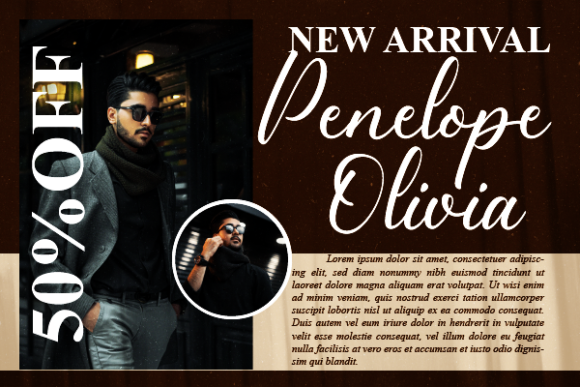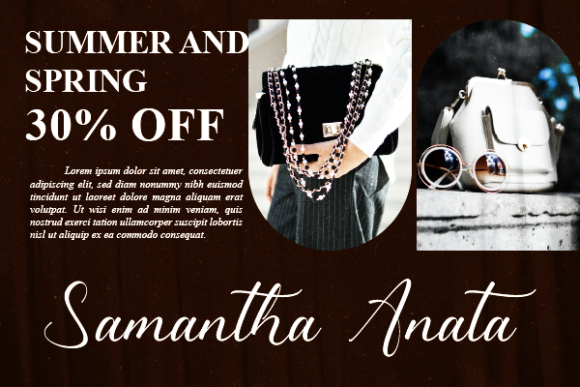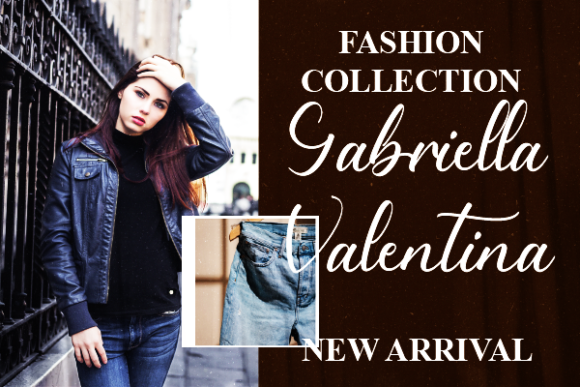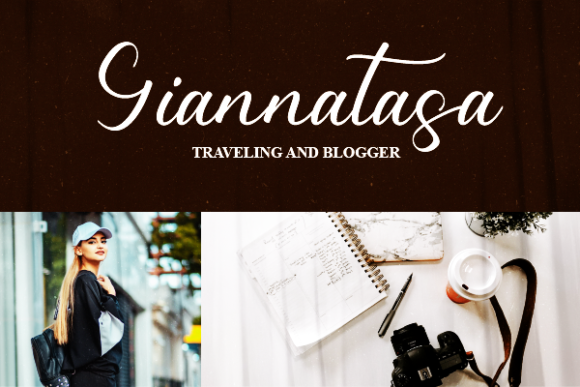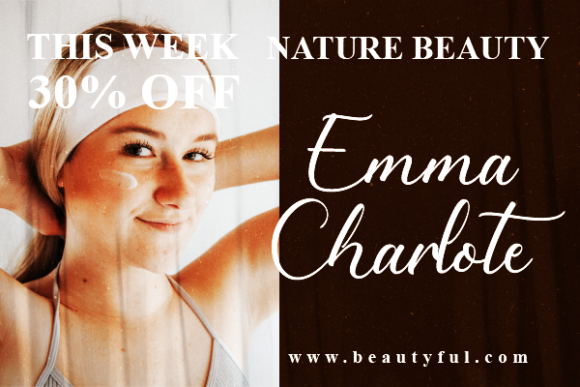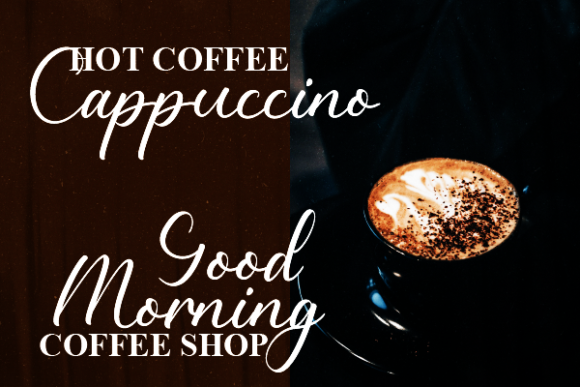
When Design Meets Elegance: Ainsley Regina Font
Have you ever been stuck on a design project, scrolling through fonts, trying to find that perfect match? You know, that moment when everything comes together, and your creative vision starts to take shape? That’s exactly what happened when the Ainsley Regina Font was born – a free-flowing script font designed to elevate your packaging, invitations, and event posters to the next level.
Ainsley Regina Font is more than just a pretty face; it’s a valuable tool for designers looking to add a touch of sophistication and elegance to their work. With its beautiful and balanced character, this font seamlessly fits into any design pool, making it an ideal choice for creatives who want to stand out from the crowd.
Ainsley Regina Font Key Features
- Font Family: Ainsley Regina Font
- Unique Characteristics: Elegant script font with a touch of vintage charm, suitable for wedding invitations, greeting cards, and other special occasions
Ainsley Regina Font Review
I’ve had the chance to work with the Ainsley Regina Font, and I must say it’s a lovely addition to any design project. ✨ One of the things that stands out is its elegant and refined feel, perfect for creating a sophisticated and high-end look. The font is highly legible, even at smaller sizes, making it a great choice for body text.
Another aspect that I appreciate is the font’s versatility. ✨ It’s suitable for a wide range of applications, from headlines to titles, and even for use in logos. The font’s unique characteristics make it stand out without being too overpowering.
- ⚠️ The font may not be suitable for use in digital applications where screen readability is a concern, as it may not display as well at smaller sizes or on lower-resolution screens.
- ⚠️ The font’s ornate details may make it challenging to use in situations where simplicity is key, such as in publications with a lot of text.
Overall, the Ainsley Regina Font is a solid choice for designers looking to add a touch of elegance to their projects. While it may have some limitations, its unique characteristics and versatility make it a great addition to any font collection.
For the best results, use the Ainsley Regina font for titles, headings, and other prominent text elements. It pairs well with modern and minimalist designs. You can also use it to create a cohesive brand identity across multiple platforms.
Alternative Font Options for Ainsley Regina Font
The Great Vibes Font is a beautiful, elegant script font perfect for adding a touch of sophistication to your designs. It’s ideal for use in wedding invitations, branding materials, and other high-end projects.
Compared to Ainsley Regina Font, Great Vibes Font has a more refined and polished look, with more fluid connections between letters. While Ainsley Regina Font has a more vintage feel, Great Vibes Font is more modern and sleek.
The Lobster Font is a fun, playful script font that’s perfect for adding a touch of whimsy to your designs. It’s ideal for use in advertising materials, social media graphics, and other projects where you want to grab attention.
Compared to Ainsley Regina Font, Lobster Font has a more casual and relaxed feel, with a more uneven and handwritten look. While Ainsley Regina Font is more elegant and refined, Lobster Font is more playful and fun.
The Playfair Display Font is a luxurious, high-end serif font perfect for adding a touch of elegance to your designs. It’s ideal for use in luxury branding materials, high-end advertising, and other projects where you want to convey sophistication and refinement.
Compared to Ainsley Regina Font, Playfair Display Font has a more formal and traditional look, with more ornate details and flourishes. While Ainsley Regina Font has a more vintage feel, Playfair Display Font is more modern and refined.